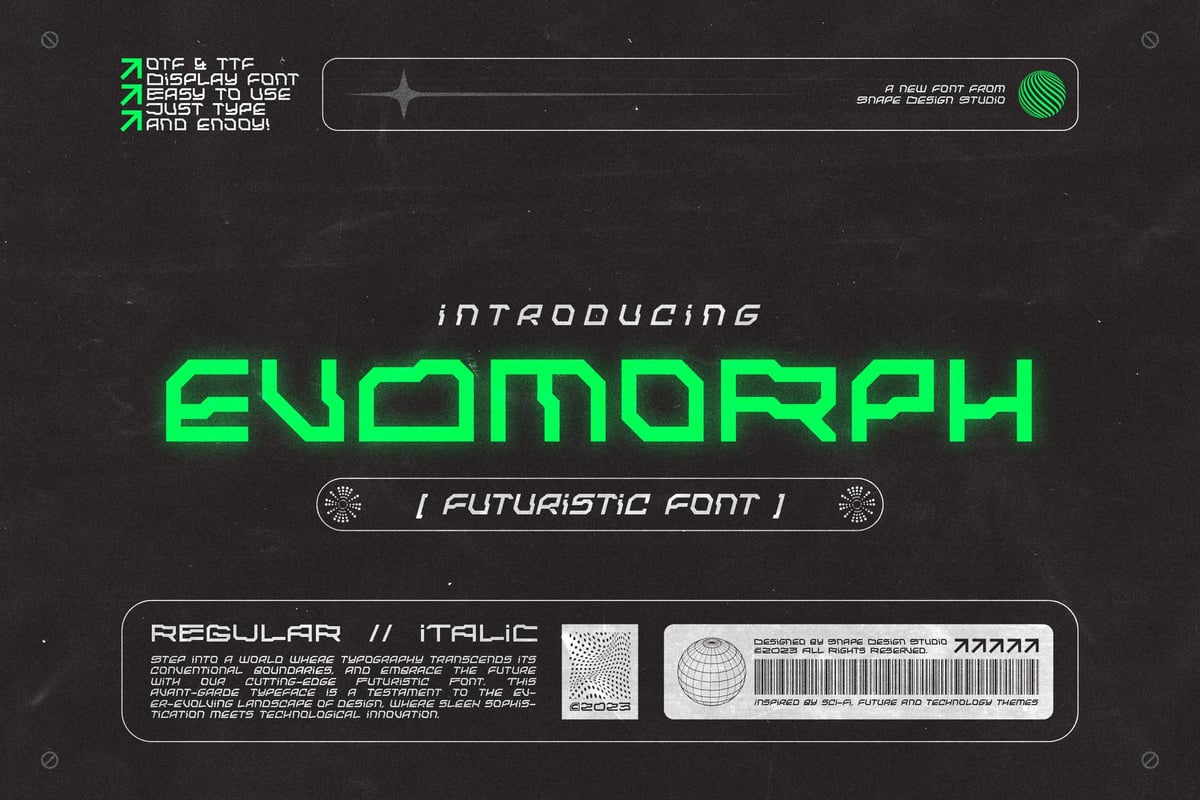
Evomorph - Futuristic Font
Transform your designs with cutting-edge typography that seamlessly merges technology and artistry. This innovative futuristic font collection redefines modern design with sleek, dynamic characters that deliver visual impact. The typeface features clean geometric forms with a technological edge, making it ideal for sci-fi projects, tech branding, and any creative work demanding a contemporary aesthetic. The versatile design adapts effortlessly across applications while maintaining its distinctiv...